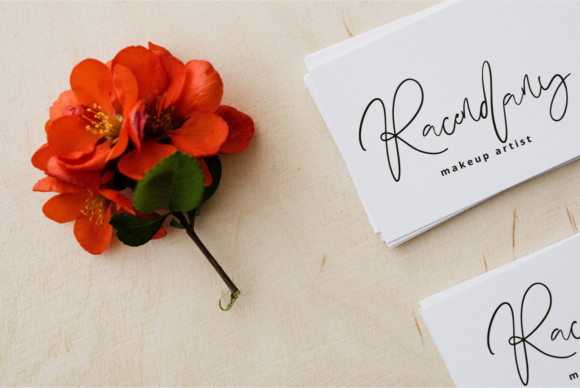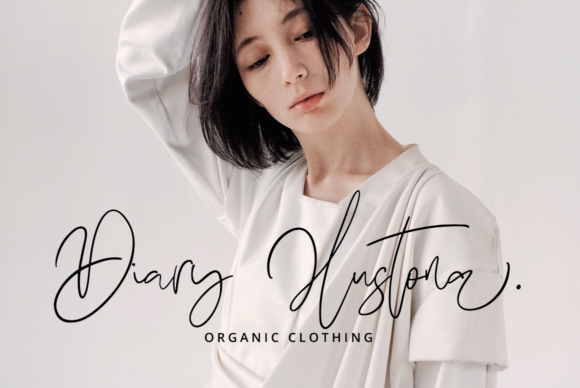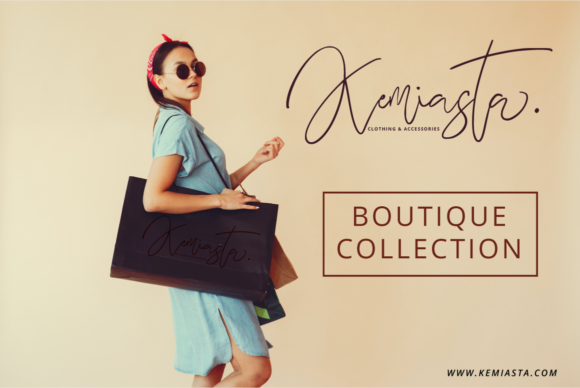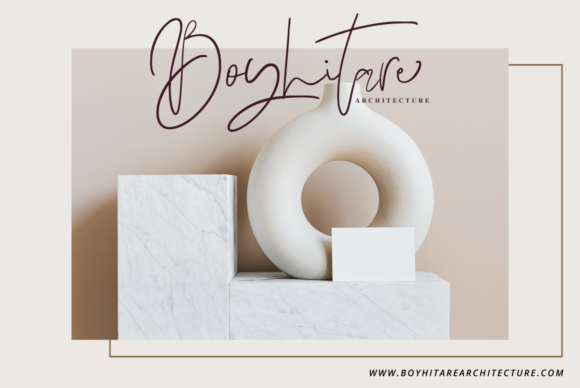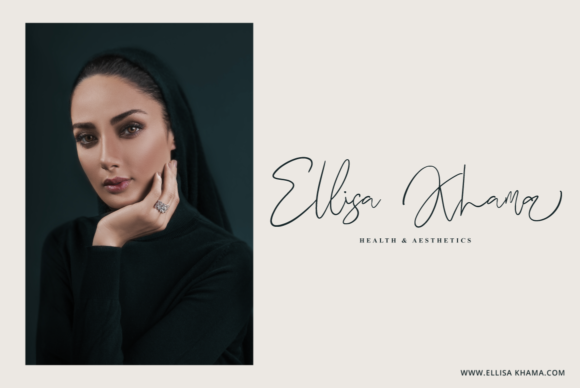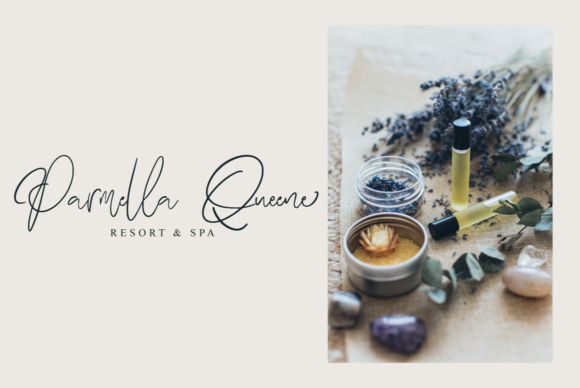
Introduction to Madrutype Font
Have you ever found yourself scrolling through design inspiration boards, searching for that perfect font to elevate your creative project? I know I have. And then, it hits you – a beautiful, handwritten font that makes your design shine. For me, that font is Madrutype Font. Its relaxed and stylish vibe is the perfect addition to any design, and I’m excited to share its features with you.
As designers, we’re always on the lookout for high-quality fonts that can help us create visually stunning designs. Madrutype Font delivers just that, with its clean, thin, and smooth design that’s perfect for a wide range of creative projects. Plus, with its transparent background, you can easily customize it to fit your design needs.
Key Features of Madrutype Font
- High-quality font design, perfect for creative projects that require a unique touch.
- Features a transparent background, allowing for easy customization and versatility in design.
- Includes a comprehensive character set, covering a wide range of languages and symbols.
- Unique, handcrafted aesthetic that adds a personal touch to any creative project.
Honest Review: Madrutype Font
As a designer, I’m always on the lookout for high-quality design resources that can elevate my creative projects. The Madrutype Font is one such resource that caught my attention.
What works well: ✨ The Madrutype Font has a unique and stylish design that can add a touch of sophistication to any project. It’s perfect for designers who want to create a bold and eye-catching visual identity. The font also comes with a transparent background, making it easy to use in various design contexts.
However, there are a few limitations: ⚠️ The font may not be suitable for projects that require a more subtle or conservative design approach. Additionally, the font’s uniqueness may not appeal to all designers.
Overall, the Madrutype Font is a great addition to any designer’s toolkit. Its unique design and high-quality construction make it a valuable resource for creative projects. While it may not be suitable for all projects, it’s definitely worth considering for those that require a bold and eye-catching visual identity.
Madrutype Font
Tips for Getting the Most Out of Madrutype Font
For optimal results, use the Madrutype Font in conjunction with other high-quality design elements. Experiment with different font sizes, colors, and styles to create visually appealing designs. You can also use the font’s transparent background feature to create complex compositions and designs.
The Madrutype Font is suitable for a wide range of creative projects, including logos, graphics, and presentations. Its high-quality design and transparent background feature make it an excellent choice for designers and creatives looking for a versatile and effective design resource.